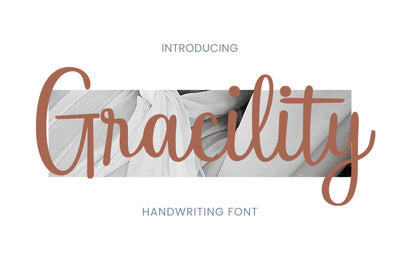
Gracility - a Handwriting Font
Gracility is a magical script font carefully created with a touch of elegance. This font was particularly crafted for those who need a beautiful and refreshing look to their designs.